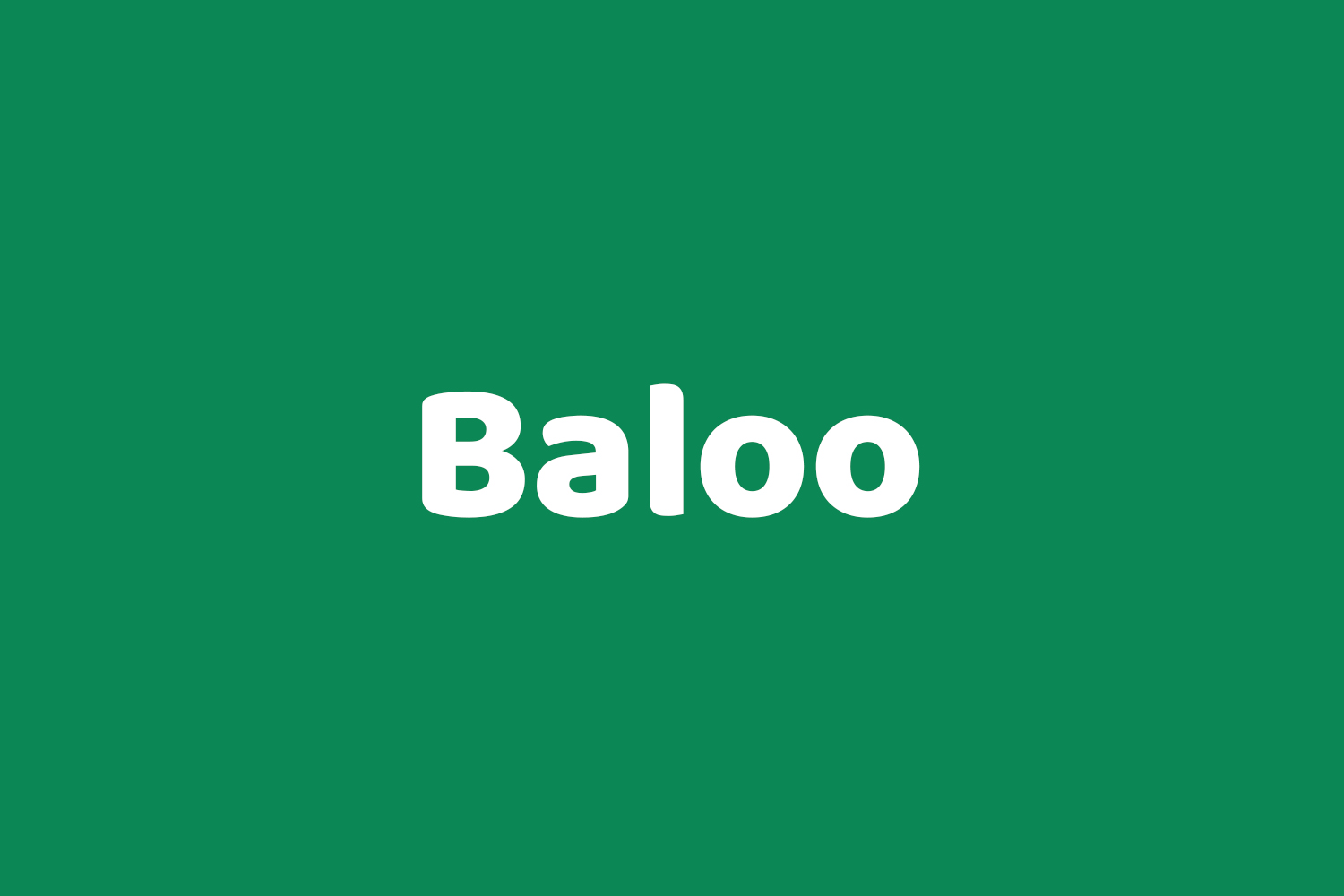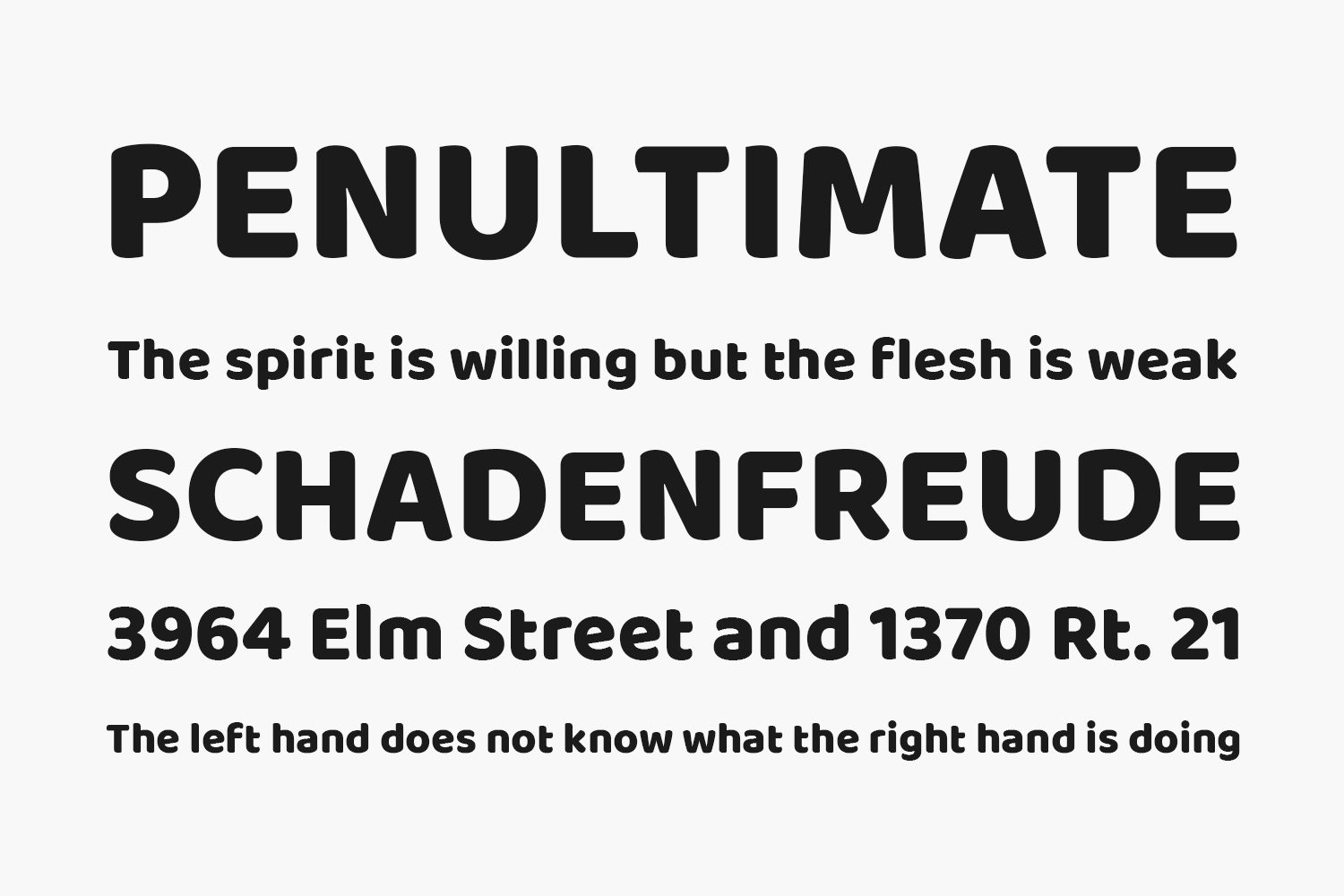
A perfect blend of pointy paws in a coat of fur, Baloo is an affable display typeface by Ek Type. Available in ten Indian scripts along with a Latin counterpart, the family is Unicode compliant and libre licensed.
Baloo Free Font is a distinctive heavy spurless design with a subtle tinge of playfulness and all the bare necessities of type. Snuggling several scripts under a single weight, the typeface focuses on giving equal justice to every act of this gentle jungle affair to secure single and multi-script use. Carefree yet confident, warm yet entertaining, sprightly yet intelligible, Baloo infuses life everywhere it goes. This font is free for both personal and commercial purposes.